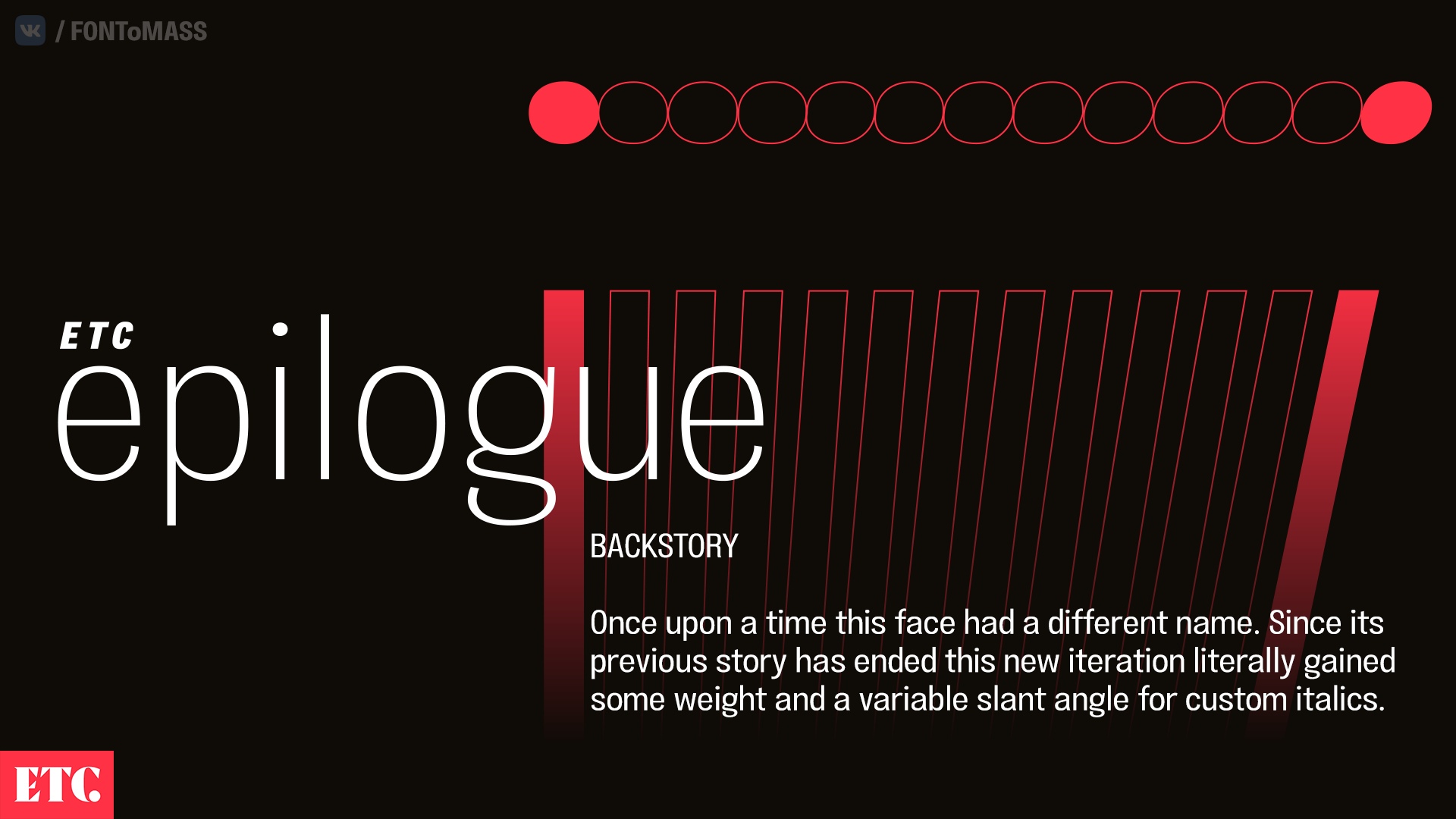
ETC Epilogue Font
ETC Epilogue Font is ideal for concluding presentations, final chapter designs, closing ceremony materials, farewell communications, completion certificates, graduation documents, ending sequence graphics, retrospective publications, memorial materials, and thoughtful conclusion-focused communications.
What makes ETC Epilogue Font so exciting is its profound embodiment of closure and meaningful conclusion that captures the contemplative beauty of endings and the transformative power of reflection through elegantly crafted typography. This thoughtfully designed typeface features refined letterforms with conclusion-inspired proportions and reflection-influenced character variations that immediately convey completion, wisdom, and the dignified grace of meaningful closure. The font's contemplative construction and conclusion-focused aesthetic create an instant sense of thoughtful resolution and peaceful finality, making it ideal for projects that need to communicate meaningful endings, reflective closure, and the life-affirming power of completed journeys to audiences seeking authentic conclusion experiences and meaningful closure moments.
The ETC Epilogue Font family typically includes multiple reflective weights and concluding styles, often featuring light, regular, and bold variations along with contemplatively flowing italic versions. Conclusion-themed font collections frequently offer additional reflective elements such as ending symbols, closure ornaments, and contemplative decorations that enhance the thoughtful aesthetic and provide designers with comprehensive tools for creating genuinely meaningful and emotionally resonant conclusion communications.
The conclusive nature of ETC Epilogue Font makes it particularly effective for targeting demographics that value meaningful closure and thoughtful reflection in their personal and professional transitions. Ceremony planners and memorial service organizers will find this font especially valuable for materials that must establish immediate emotional resonance and connect with audiences seeking authentic closure experiences and meaningful transition support.
What sets ETC Epilogue Font apart is its ability to convey profound closure while maintaining the elegance necessary for effective ceremonial and commemorative communication. This balanced characteristic makes it suitable for both formal conclusion applications and intimate reflection contexts where projecting dignified closure and maintaining emotional accessibility must work together harmoniously.
Professional designers recognize that ETC Epilogue Font brings invaluable emotional credibility to projects across industries including ceremonial services, memorial organizations, educational institutions, and transition support services. Its reflective character and concluding appeal make it essential for organizations whose mission centers on facilitating meaningful closure, supporting life transitions, and creating authentic experiences that honor completed journeys and celebrate meaningful achievements.
The carefully crafted contemplative authenticity of ETC Epilogue Font ensures consistent closure messaging across all conclusion-focused communication applications while honoring the fundamental importance of meaningful endings and thoughtful reflection in human experience.